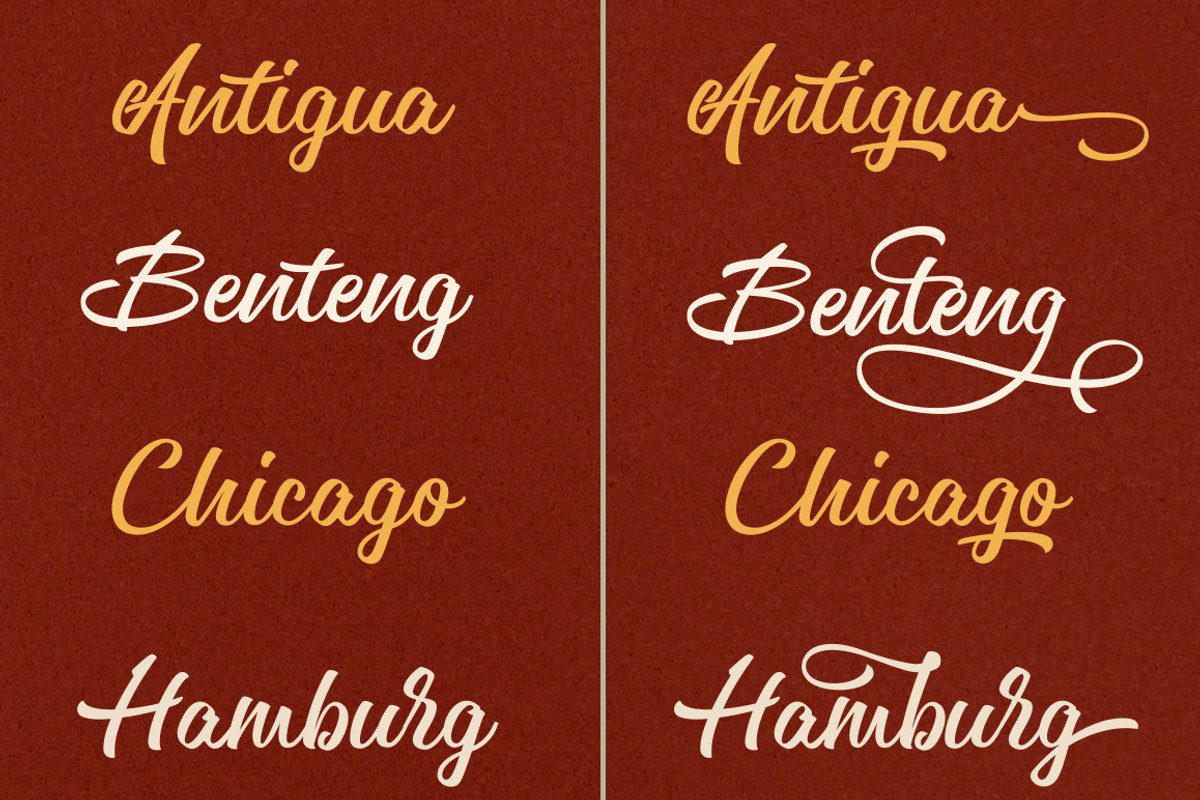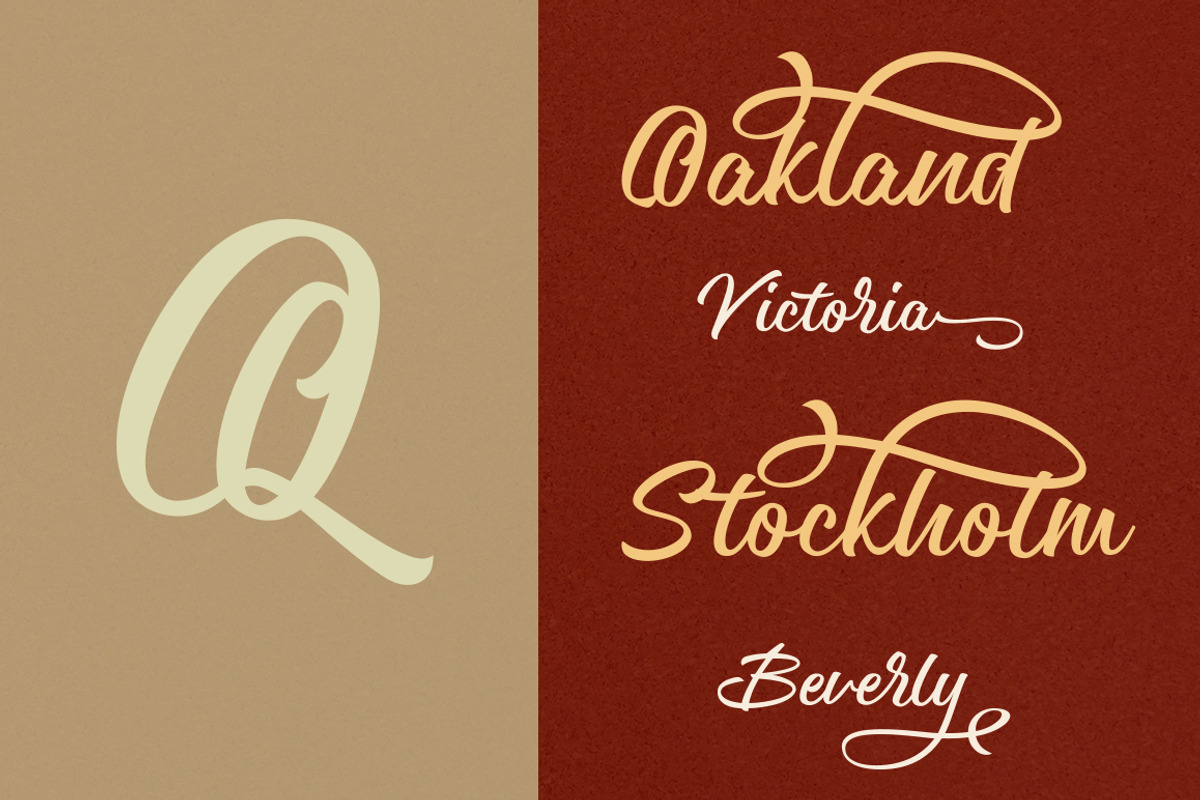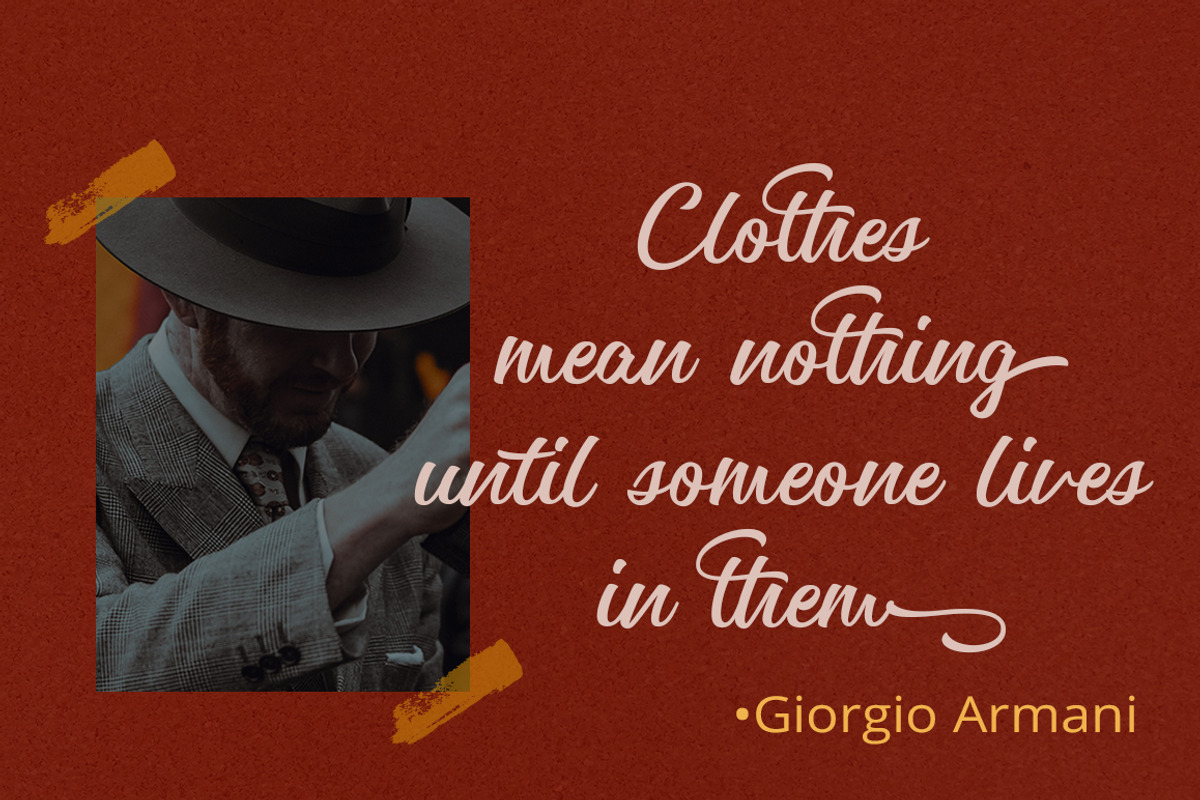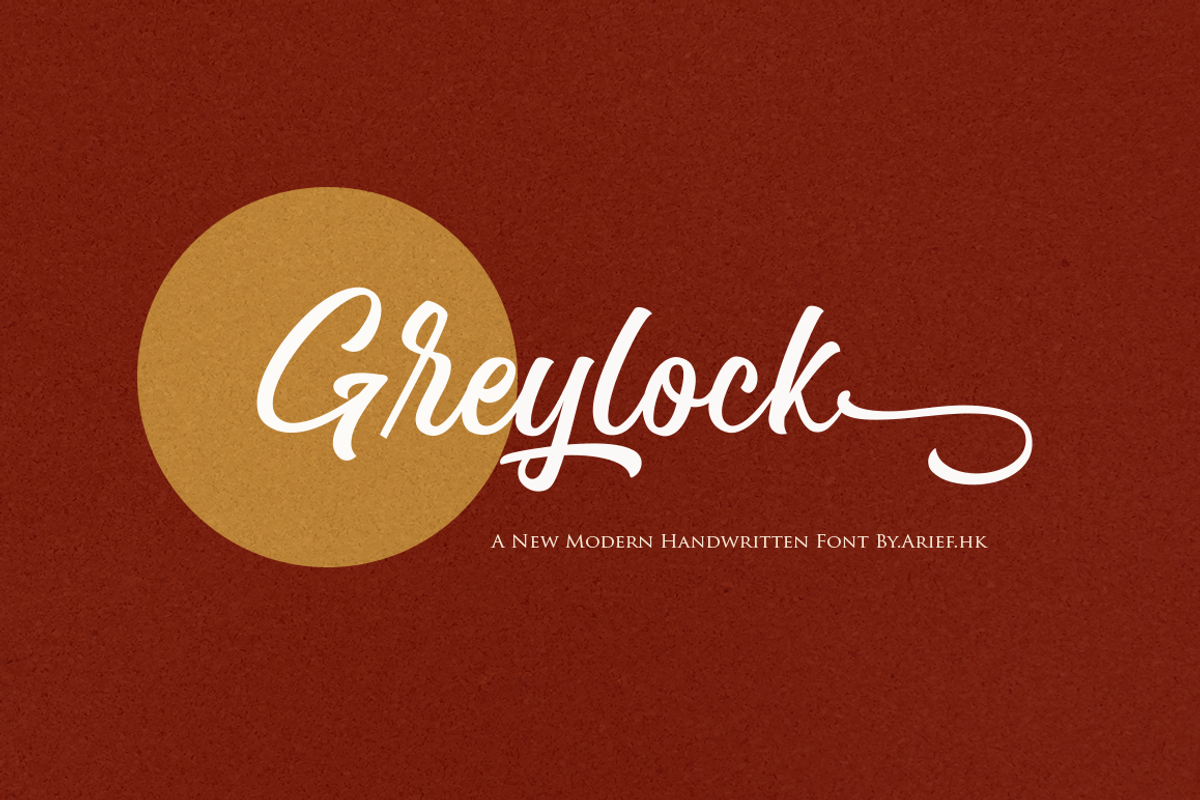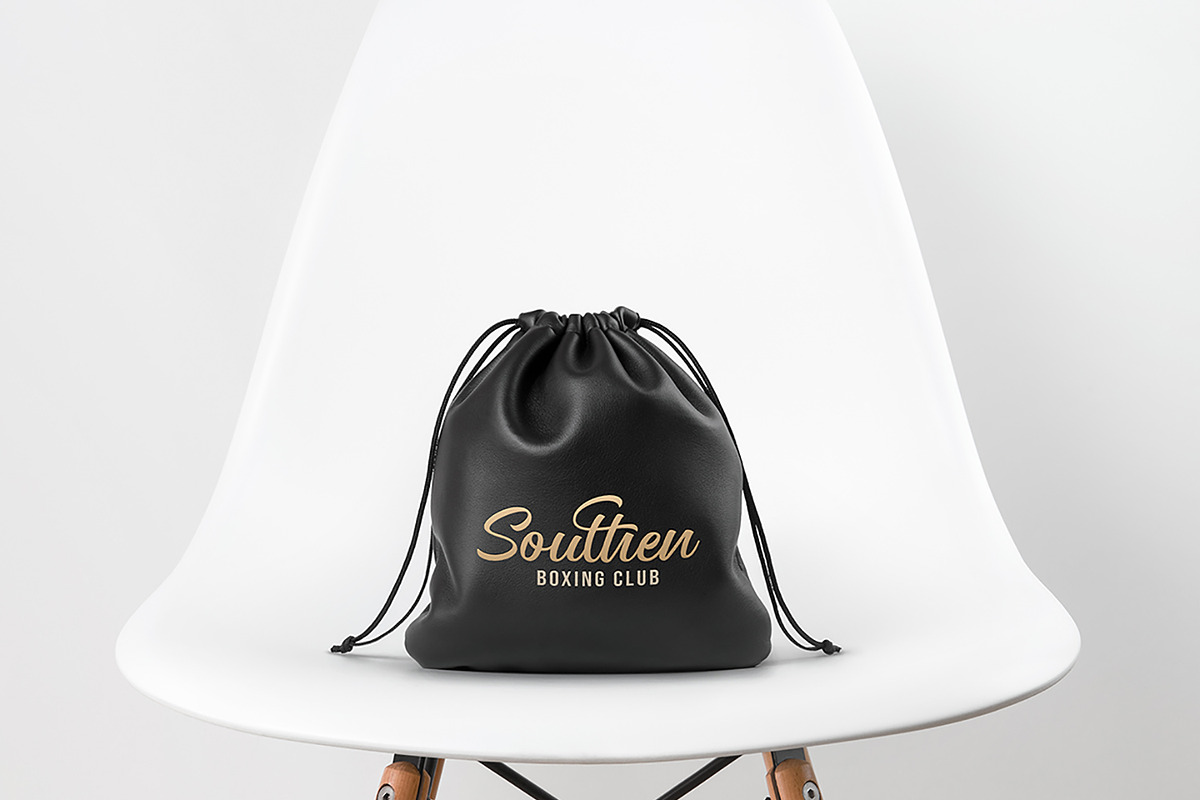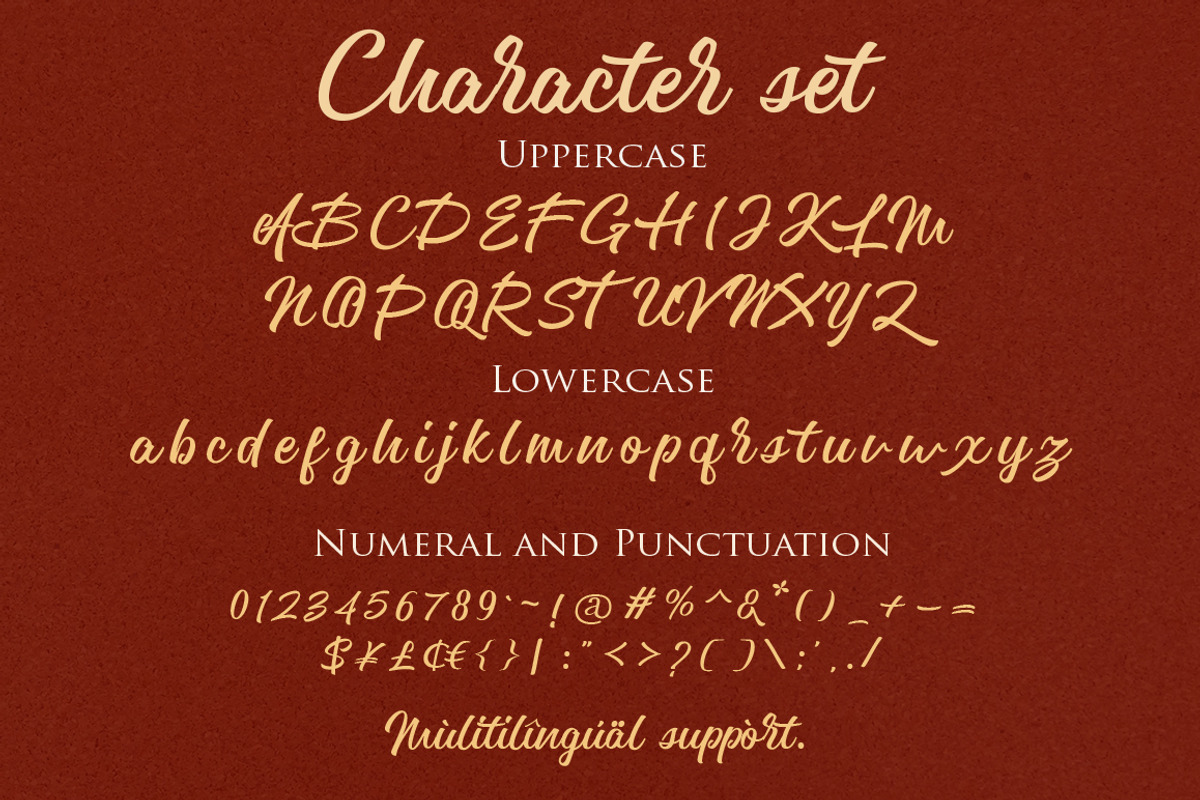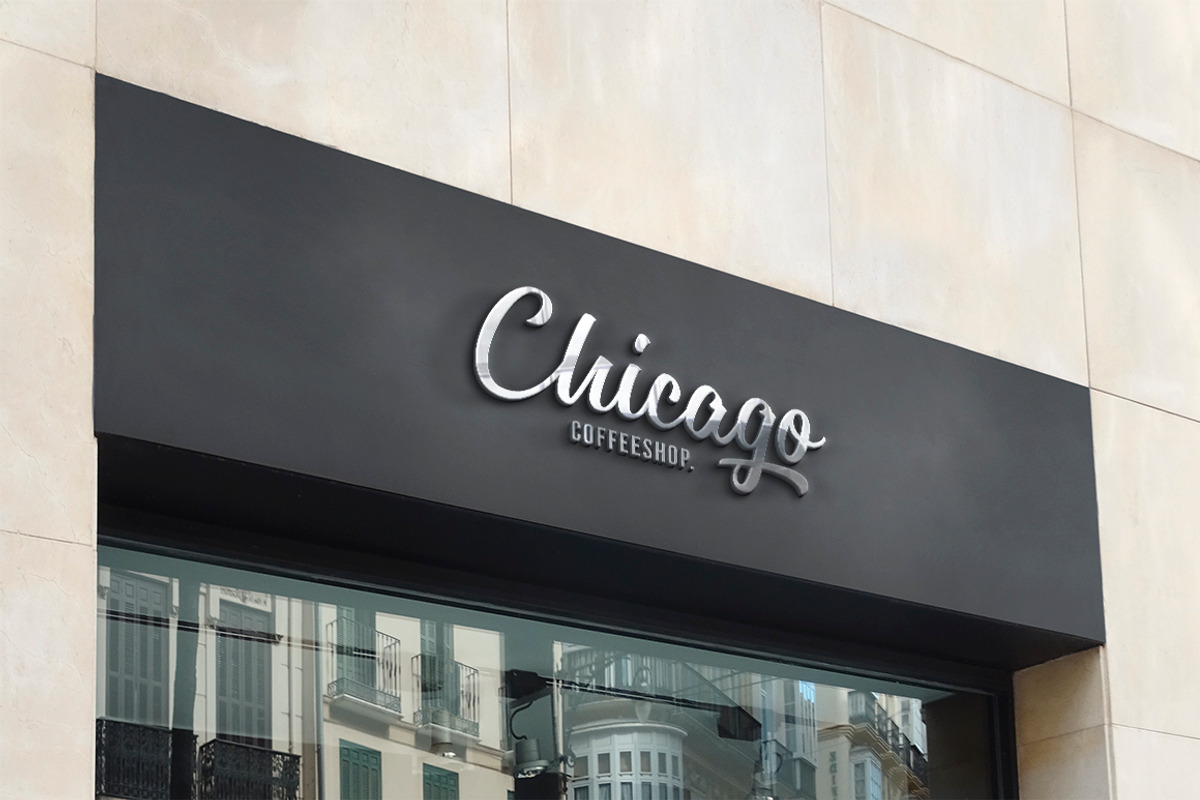
Greylock
Greylock is a casual script and clean brush script with a bouncing baseline. Include OpenType alternates and common ligatures. Try the alternates and ligatures to give your designs looks good, fresh, casual, stylish, and modern.
Greylock is equipped with 279 glyphs. and
by having many of these glyphs there will be able to choose the letters
according to your likes, lots of variations and options for each letter,
so you can customize on your design choices.